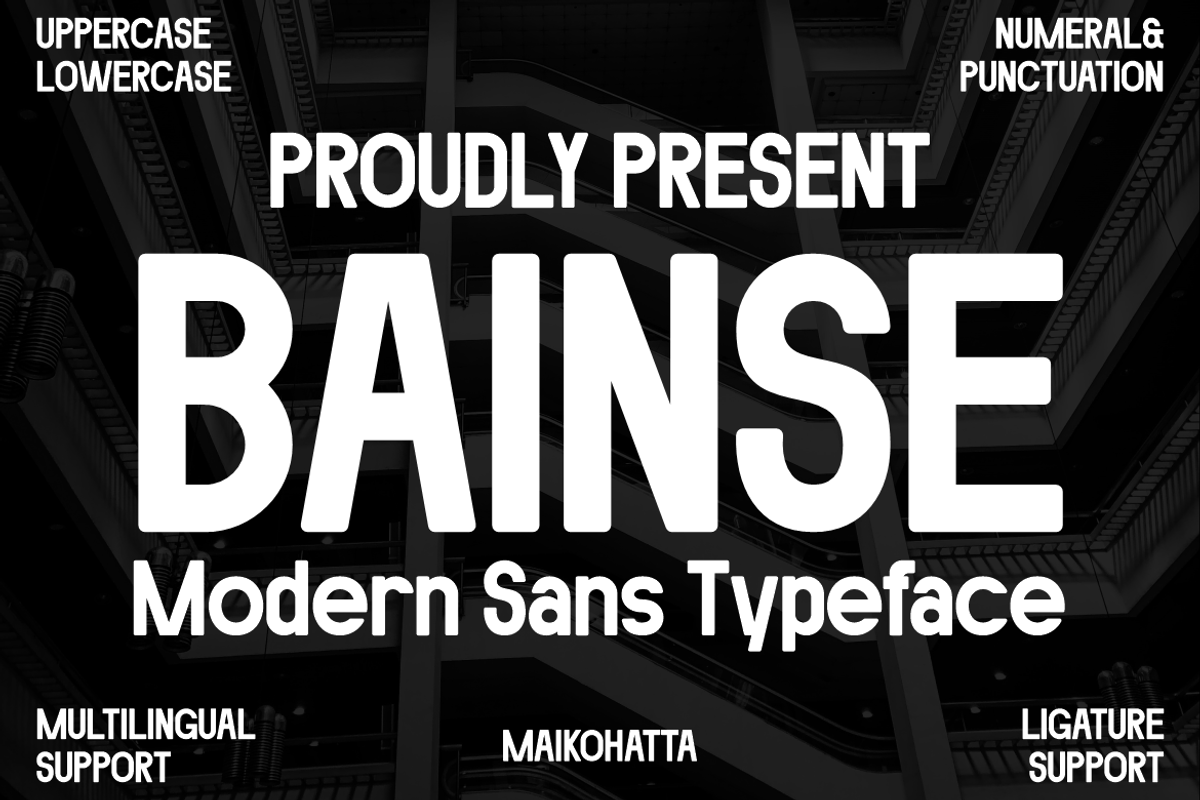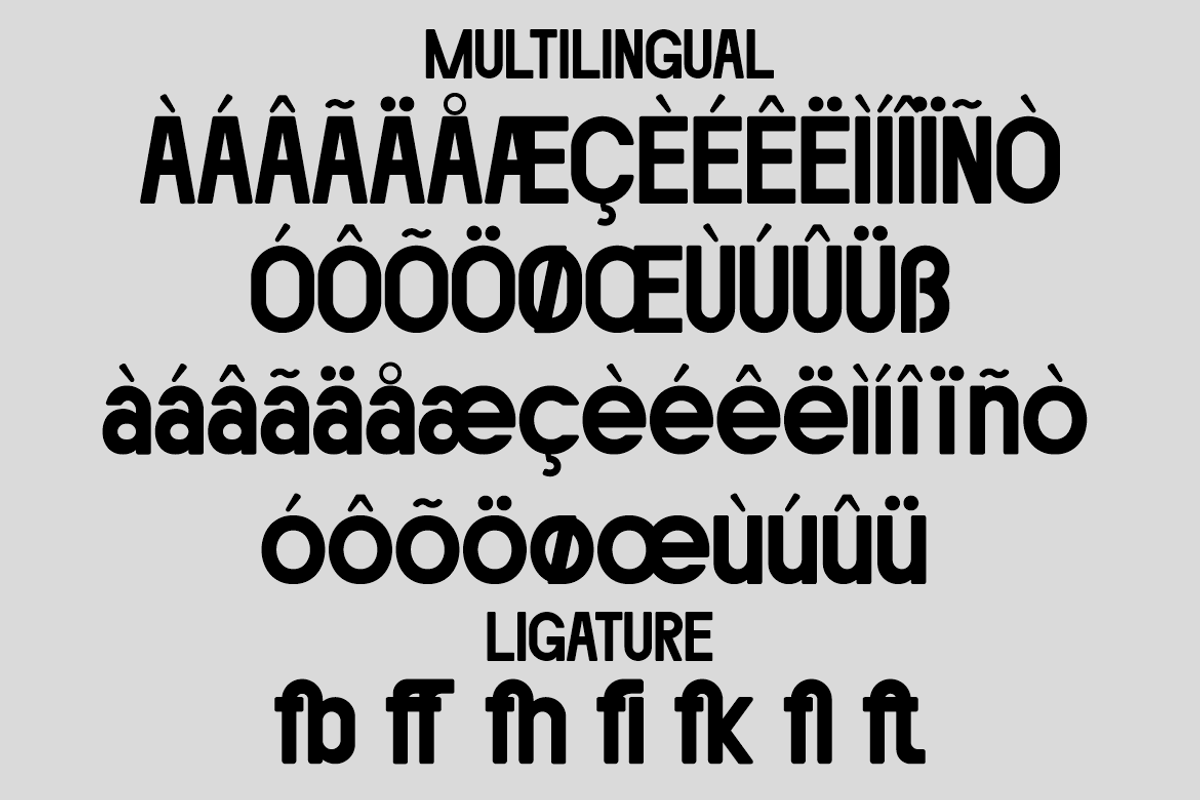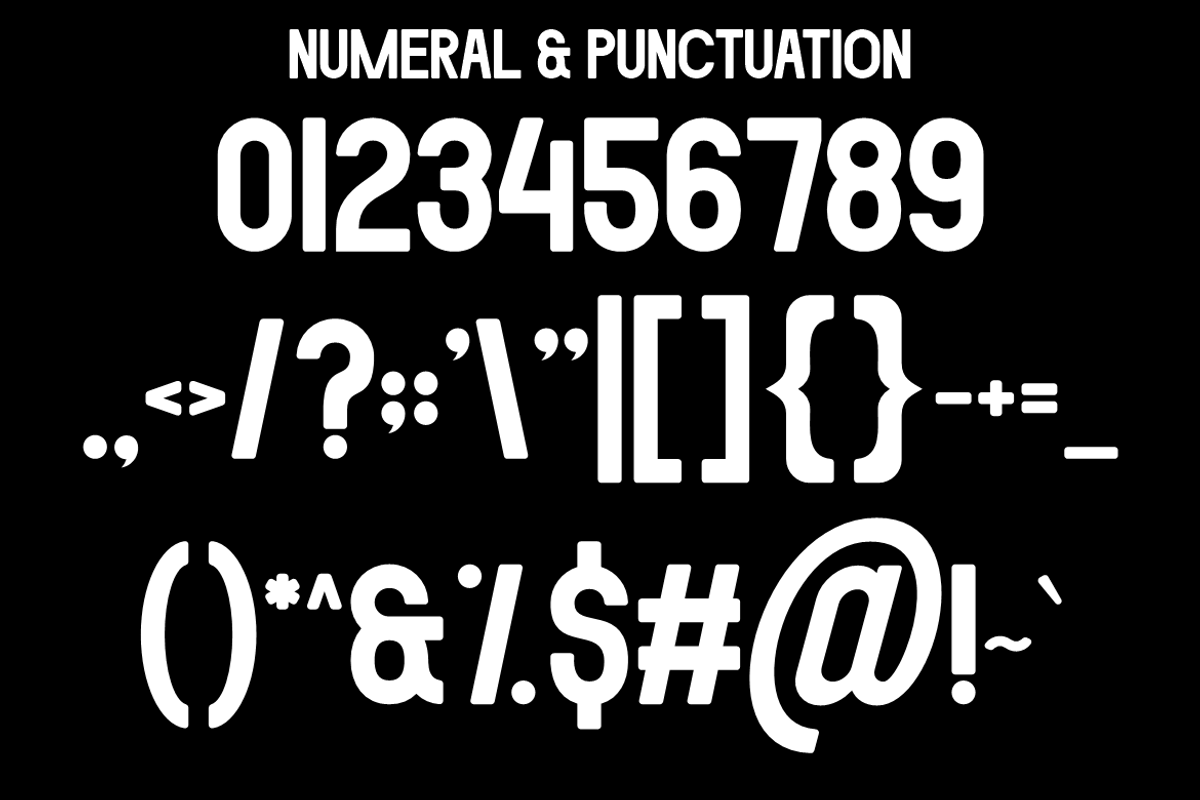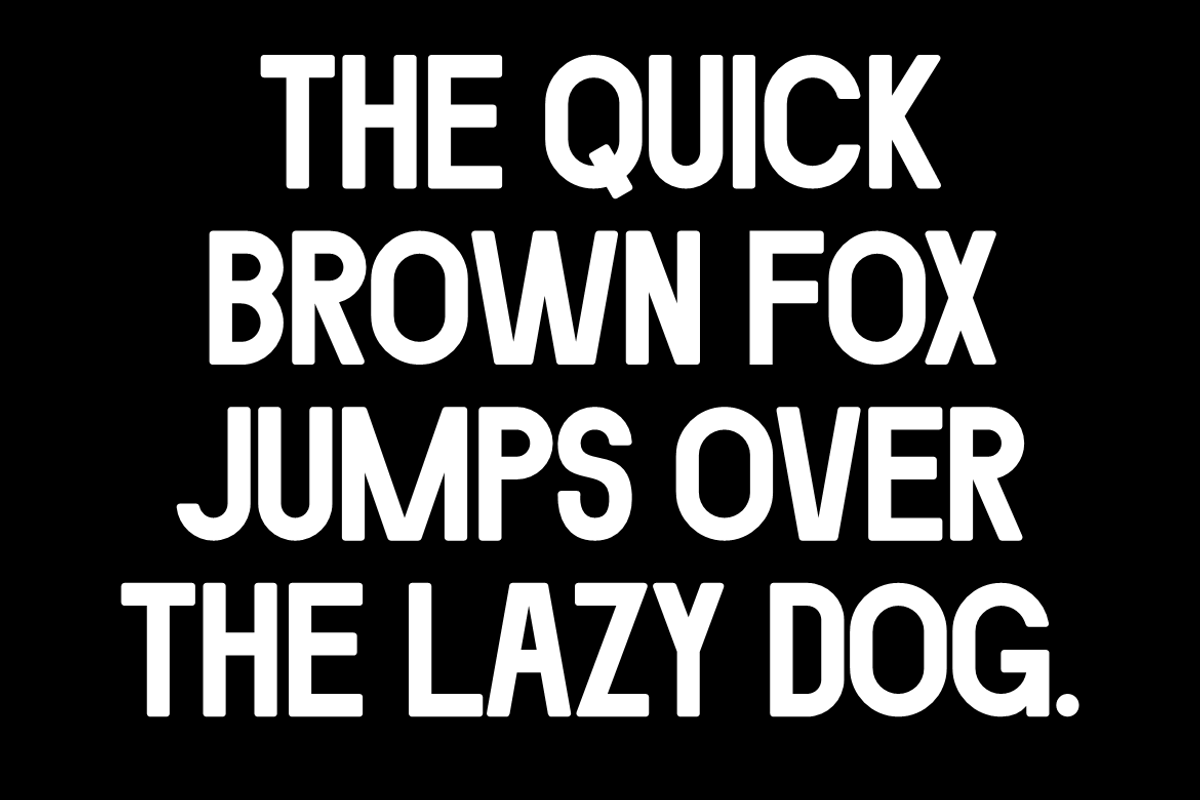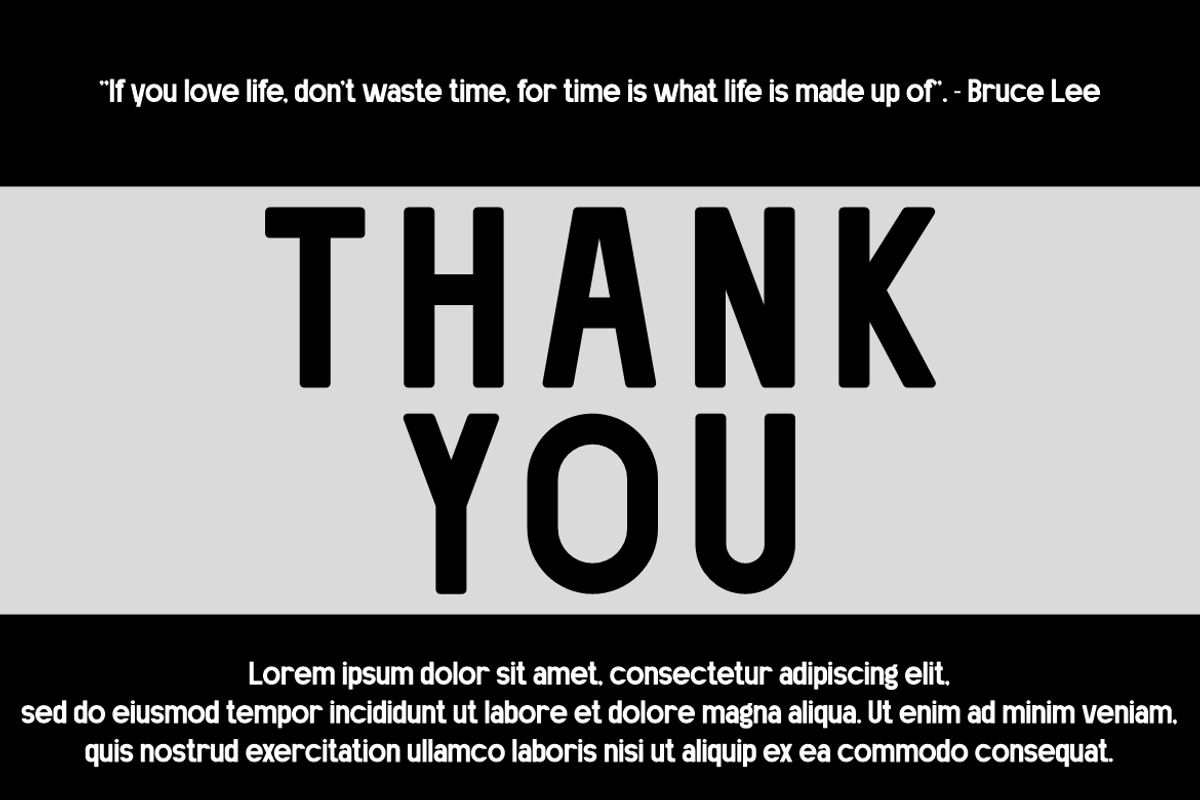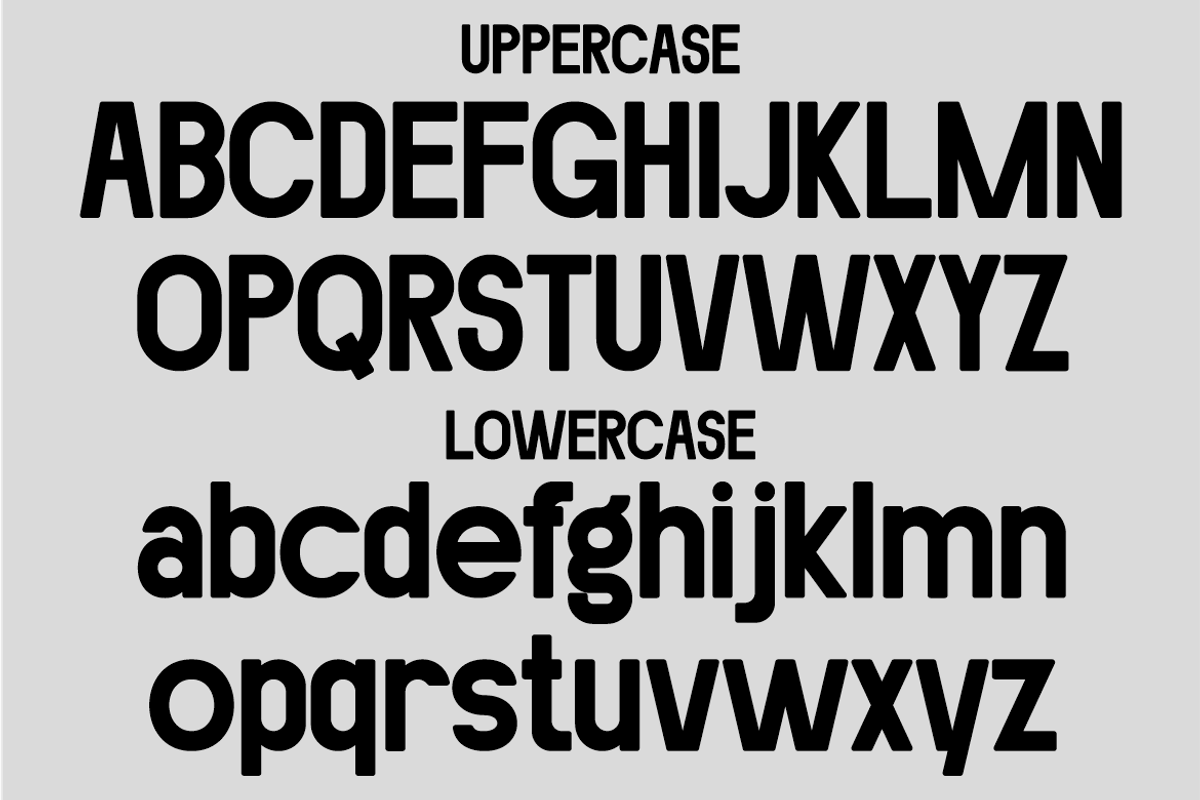
Bainse - Modern Sans Typeface
Introducing our new product Bainse - Modern Sans Typeface
Bainse - Modern Sans Typeface is a bold and authentic display font. The font is suitable for any branding project like logo, template design, and many more. outstanding in a wide range of contexts.